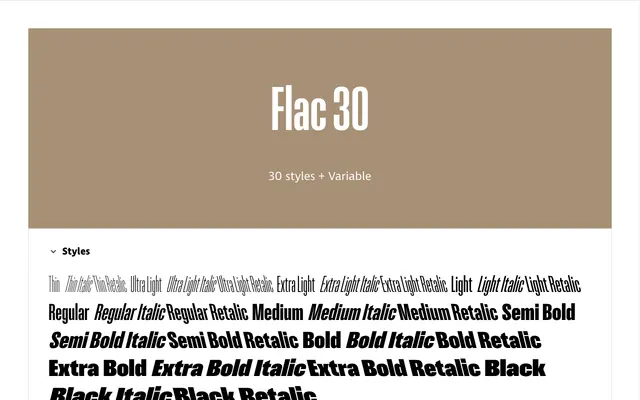
Flac 30
Lettermin · 2024
An ultra-compressed display sans in 30 styles, including a 'Retalic' variant, inspired by old film poster lettering and mid-century Blue Note Records sleeve design.
Starting from a fixed ultra-compressed Thin skeleton, each heavier weight grows the letterforms outward rather than inward, keeping counters consistent across the range and producing a silhouette unlike conventional weight progressions. The family draws on the visual language of old movie poster type and Reid Miles's Blue Note Records sleeves, and was later used in a newspaper weekend supplement redesign before reaching its definitive form in 2024. At 30 styles plus a variable font, it includes upright, italic and a distinctive Retalic cut across ten weights, with thirteen stylistic sets, small caps, and a broad Latin Extended character set.
An ultra-compressed sans whose letterforms grow outward from a fixed Thin skeleton as weight increases, producing an unusual visual rhythm rooted in film poster and mid-century jazz record sleeve typography. The extreme compression and distinctive weight progression place it firmly in the display category.